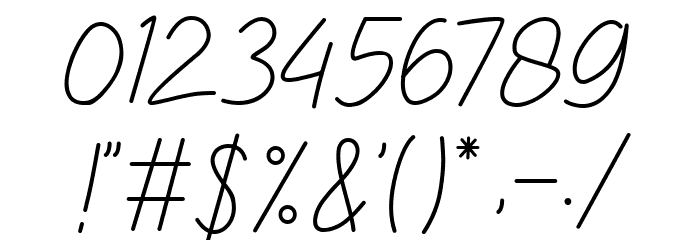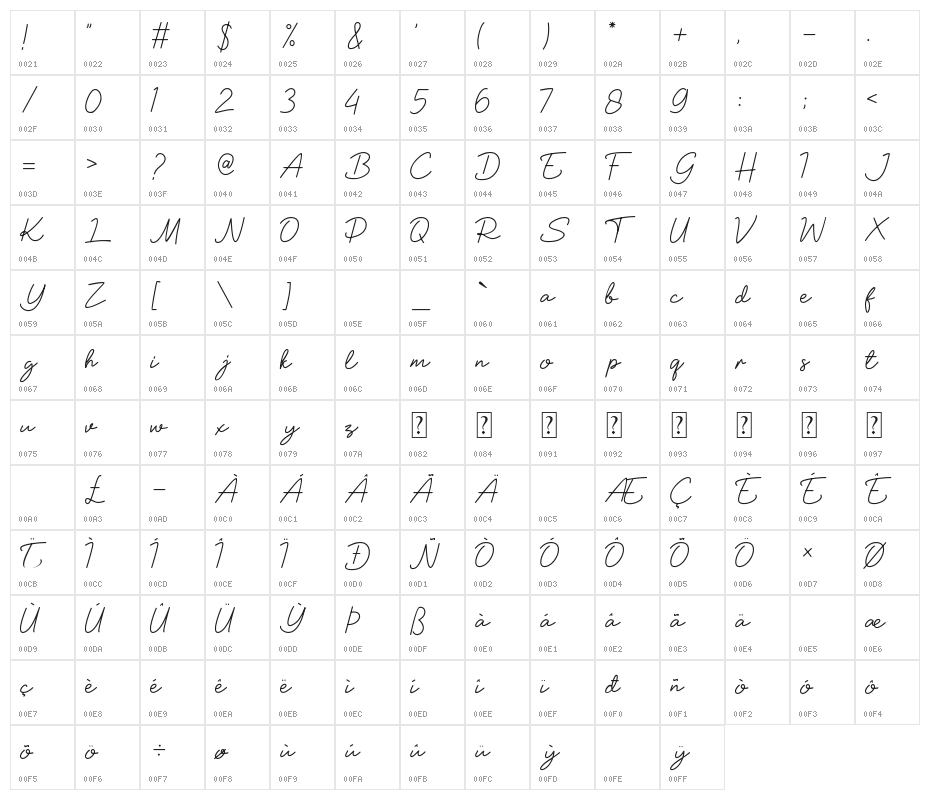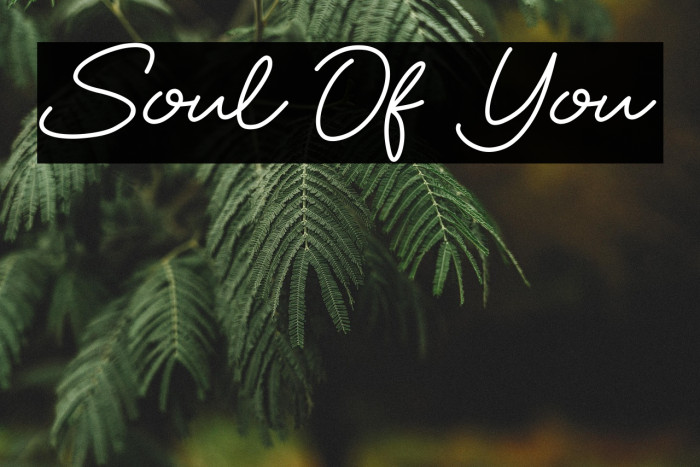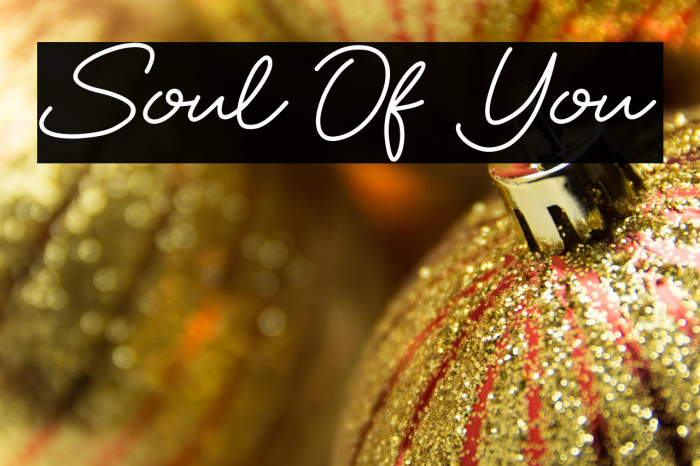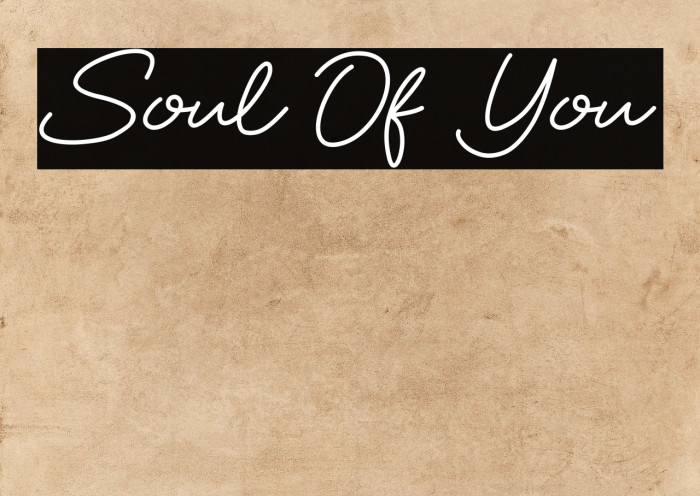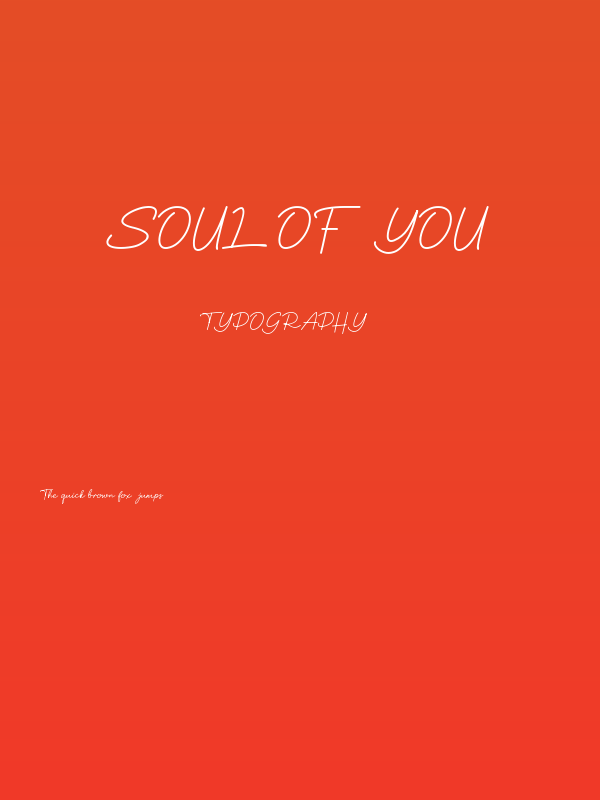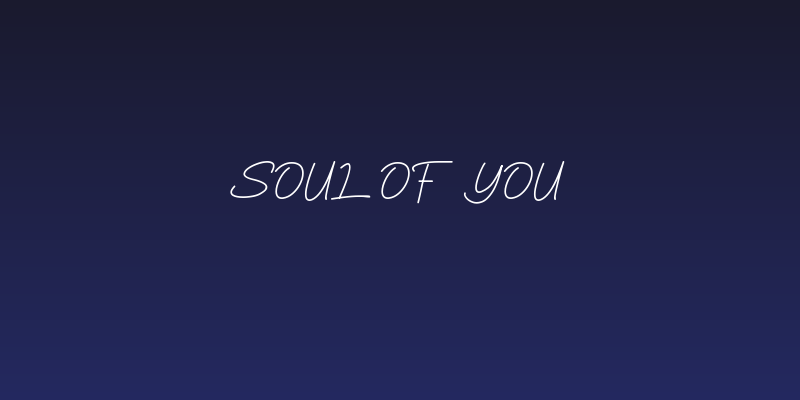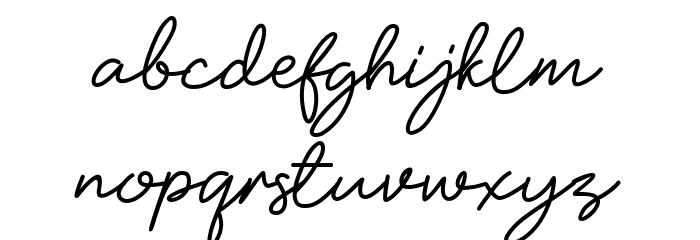
Soul Of You Font
Soul Of You Description
This elegant script font features a fluid and graceful design, characterized by its smooth, flowing lines and cursive style. The uppercase letters are slightly more angular, adding a touch of sophistication, while the lowercase letters maintain a consistent, connected flow. The numerals are clear and legible, complementing the overall aesthetic. Special characters are seamlessly integrated, maintaining the font's cohesive look. This font exudes a sense of elegance and charm, making it ideal for projects that require a personal, handwritten touch.
| Proposed Projects | Ideal for wedding invitations, greeting cards, personal branding, and elegant stationery. |